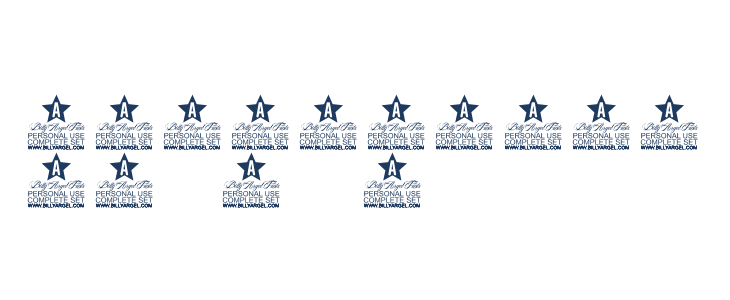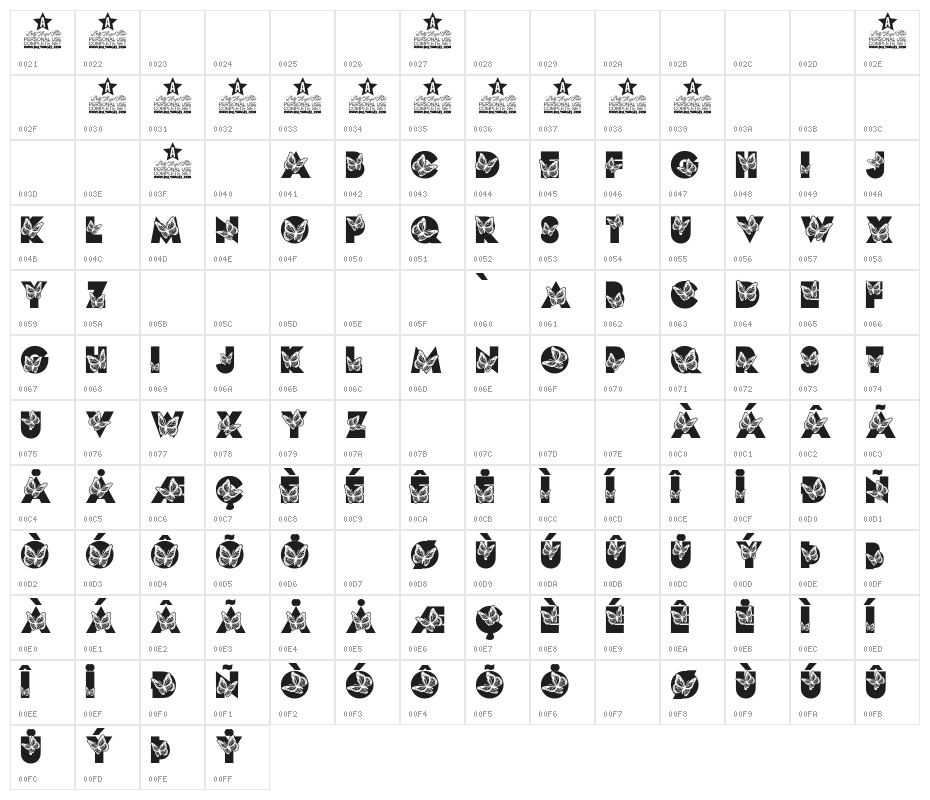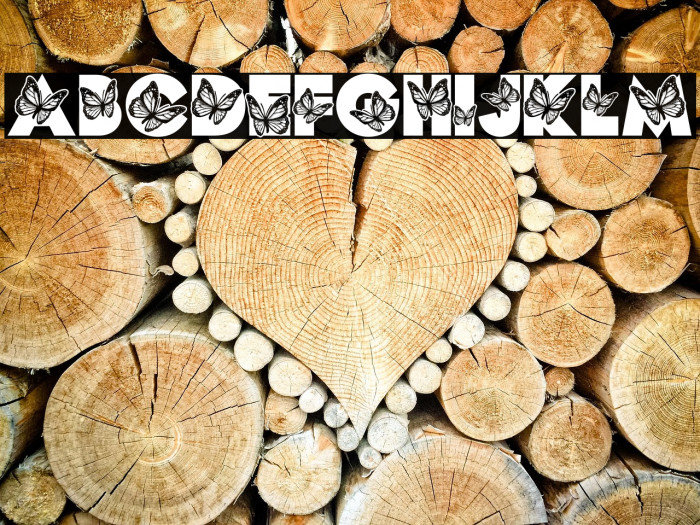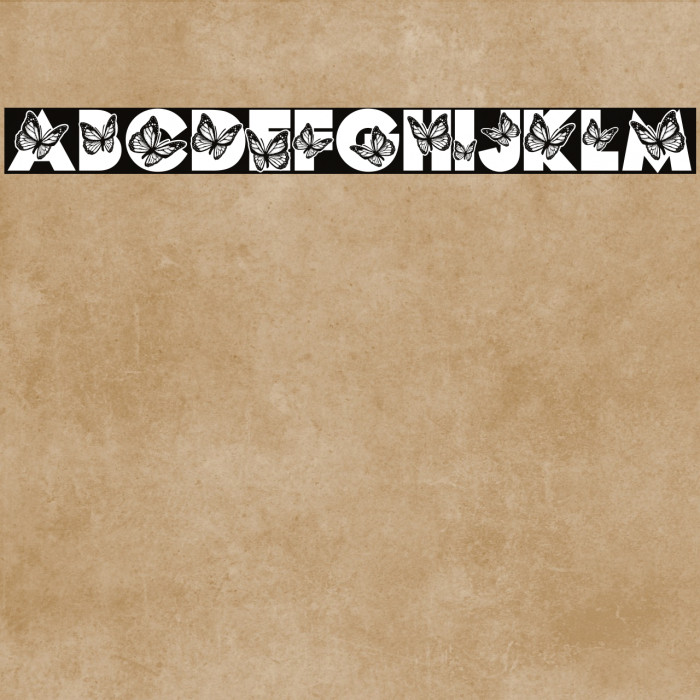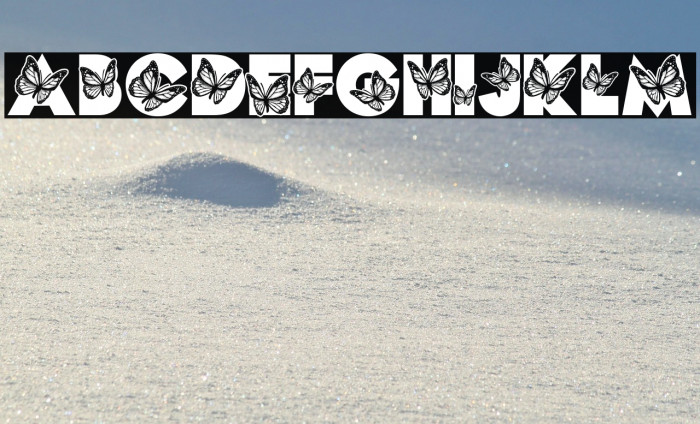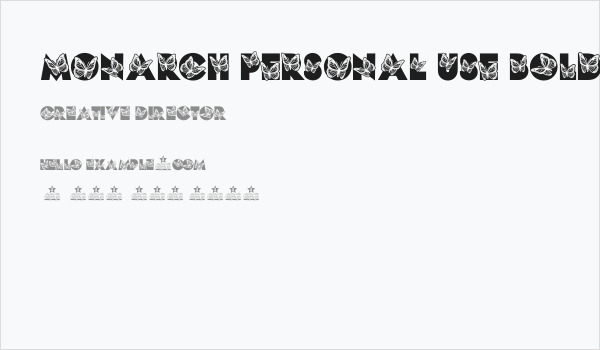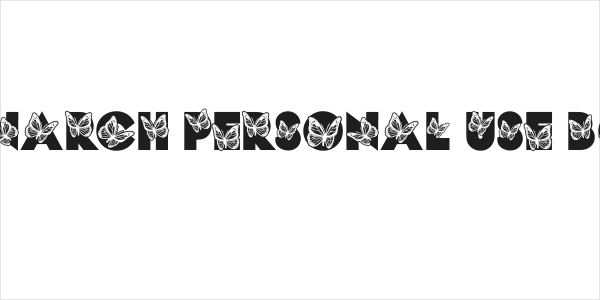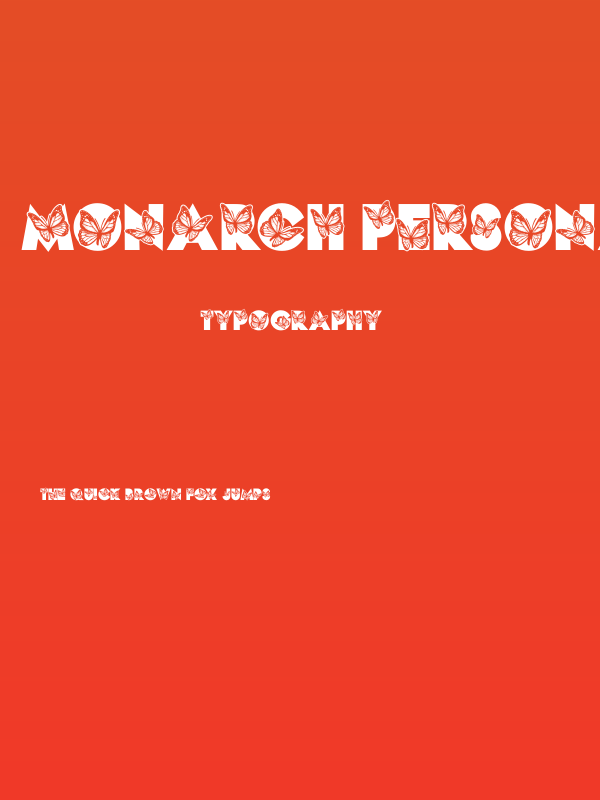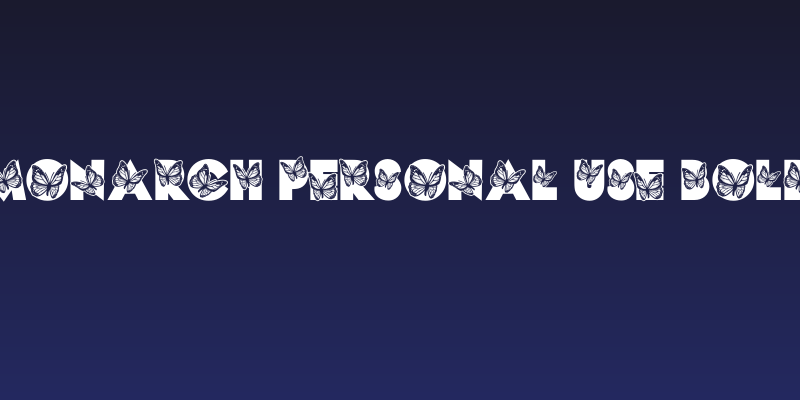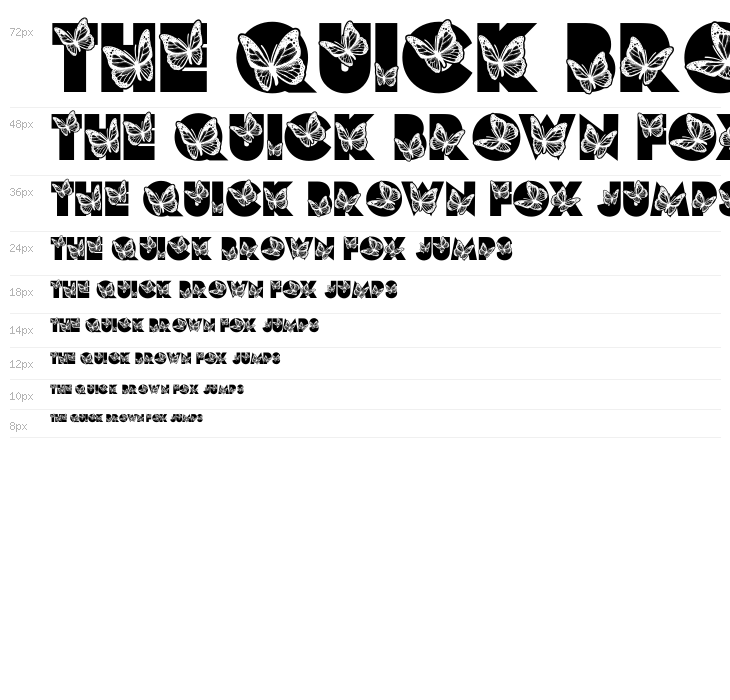
MONARCH PERSONAL USE Bold Font
MONARCH PERSONAL USE Bold Description
This decorative font features bold, uppercase letters with intricate butterfly designs integrated into each character. The butterflies add a whimsical and artistic touch, making the font stand out with its unique style. The letters are solid and bold, providing a strong visual impact, while the butterfly details offer a delicate contrast. This combination of boldness and intricacy makes it suitable for creative and eye-catching designs.